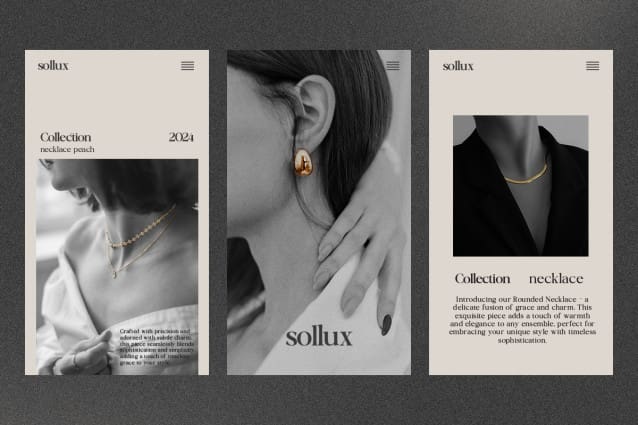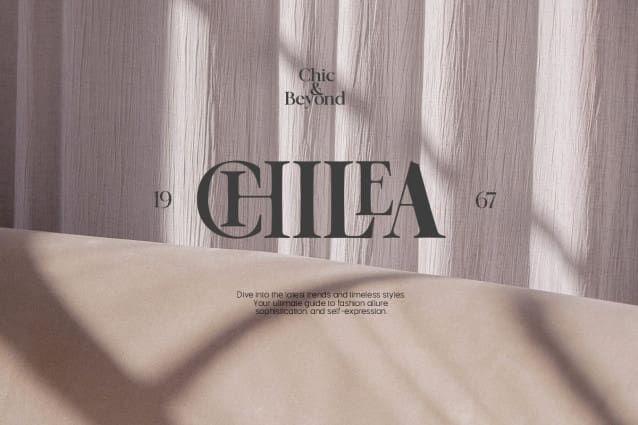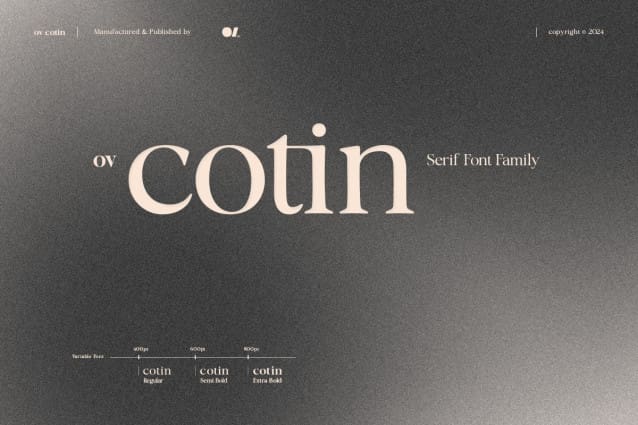
Ov Cotin Font Family
Ov Cotin Font Family, a timeless serif font with a classic foundation and a touch of modernity. This font family, featuring Regular, Semi Bold, and Extra Bold, strikes a harmonious balance between nostalgia and renewal.
Each variable font is meticulously crafted to evoke a sense of familiarity while embracing contemporary design trends. OVCotin effortlessly lends sophistication to your projects, making it an ideal choice for those seeking a blend of tradition and innovation.
Elevate your designs with OV Cotin and let its versatile charm speak volumes in every variable weight.